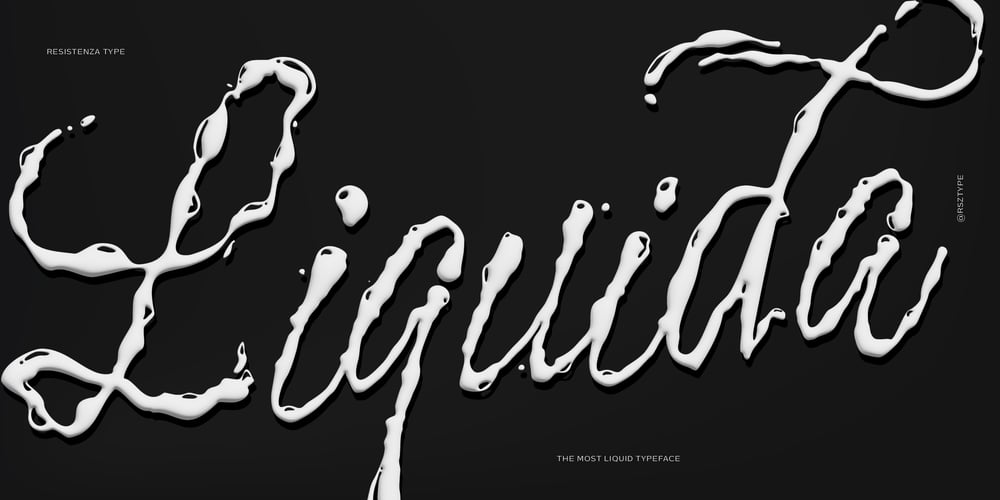
Liquida Font Family was designed by Giuseppe Salerno, Paco González and published by Resistenza. Liquida contains 1 styles and family package options. Liquida is a decorative script font with slanted inclination. All characters were designed with brush and walnut ink on paper using real ink drops to generate a trickling effect. A display typeface perfect to set a refreshing liquified lettering in seconds!